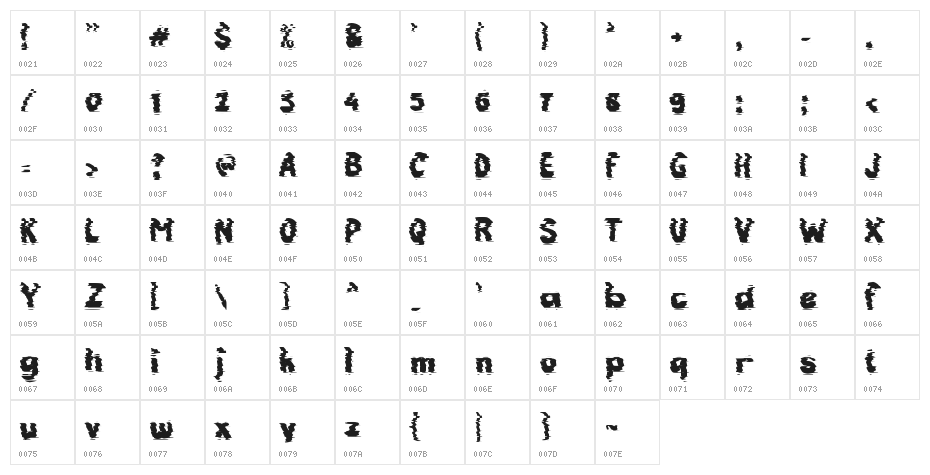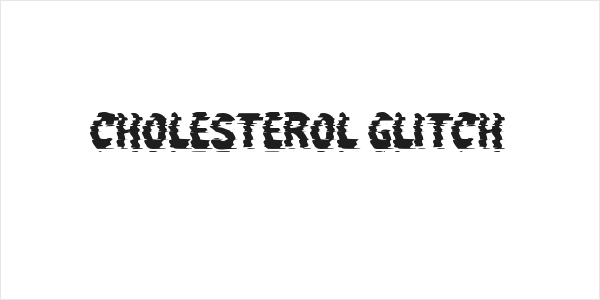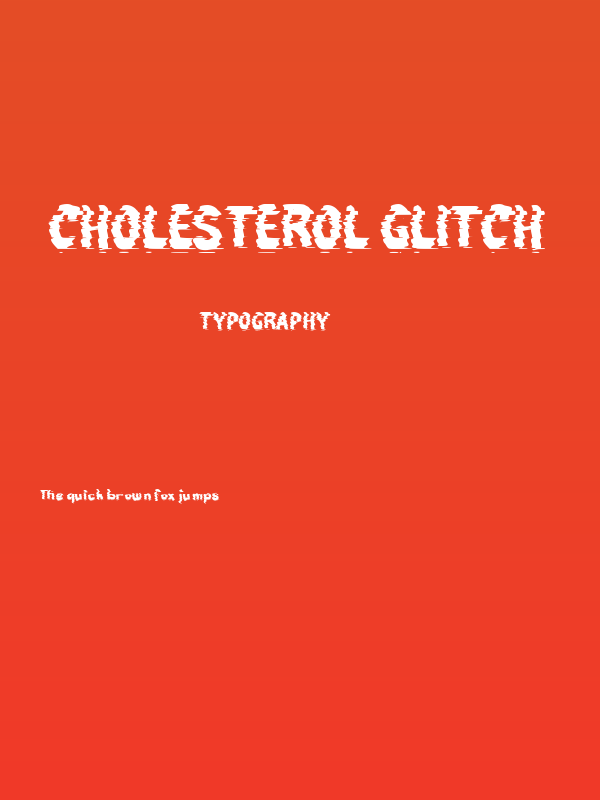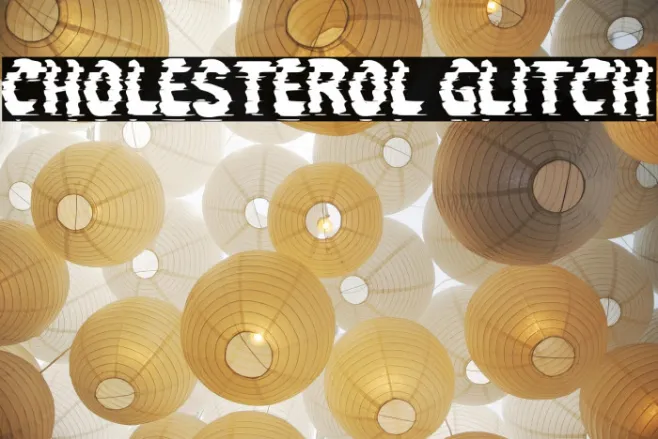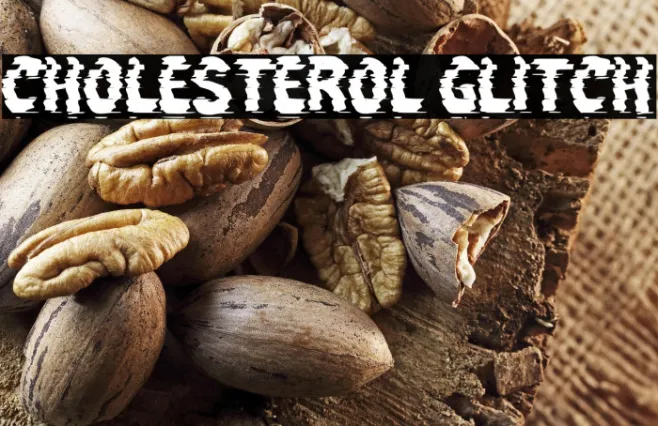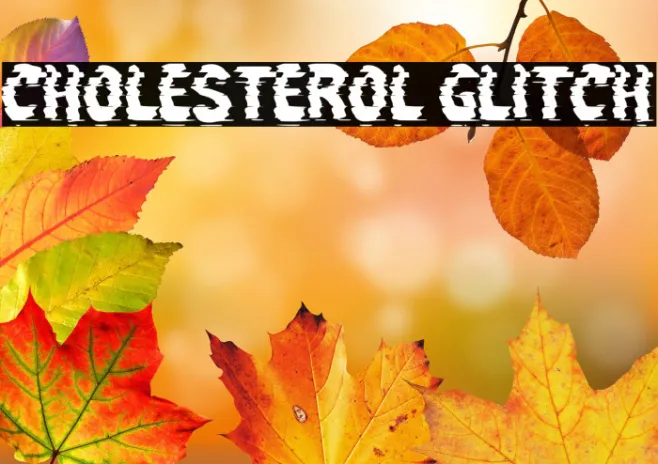
CHOLESTEROL GLITCH Font
CHOLESTEROL GLITCH Description
This font features a unique glitch effect, with characters appearing as if they are distorted by digital interference. The bold, jagged edges and irregular lines give it a dynamic and chaotic appearance, reminiscent of corrupted digital data. Each letter is heavily stylized, with varying thickness and a sense of movement, as if the characters are vibrating or shifting. This creates a visually striking and modern aesthetic that is both edgy and unconventional. The font maintains legibility despite its distorted style, making it suitable for creative and artistic projects where a bold statement is desired.
| Proposed Projects | Ideal for digital art, music album covers, video game graphics, and edgy branding projects. |